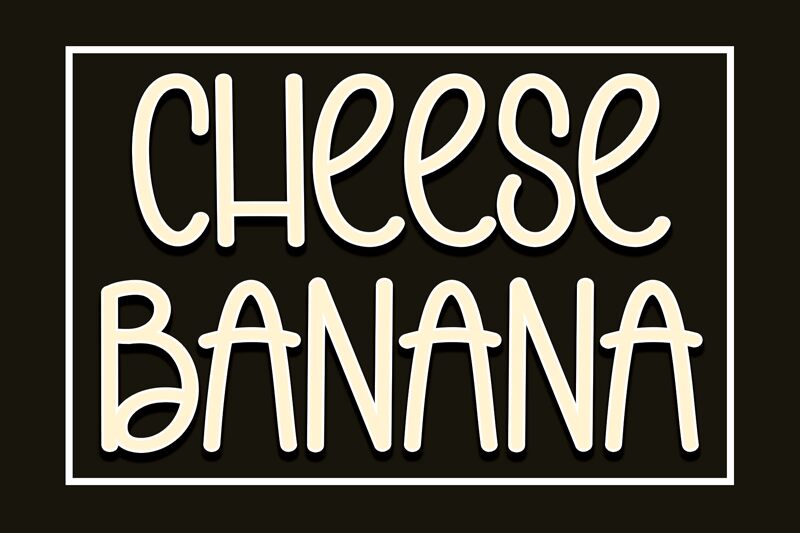
Cheese Banana
Cheese Banana, a creation by Scratchones, is a font that captures the casual flair of handwritten script with its organic flow and playful irregularities.
Its light strokes offer an airy and unassuming charm, while the slightly condensed letters convey a cozy intimacy. The effortless elegance exuded by Cheese Banana makes it an excellent choice for invitations, greeting cards, and personal blogs where a touch of personal warmth is desired.
The font's whimsical nature also lends itself well to children's books or any design medium seeking to evoke lightheartedness and fun.